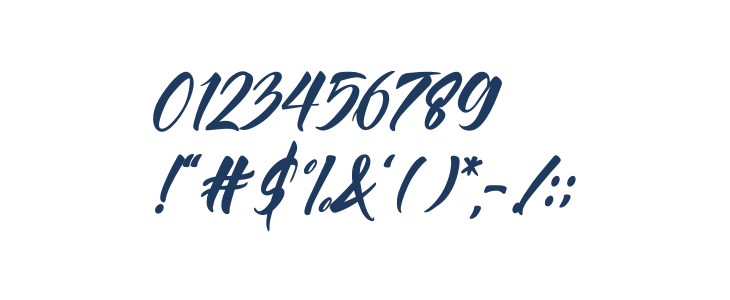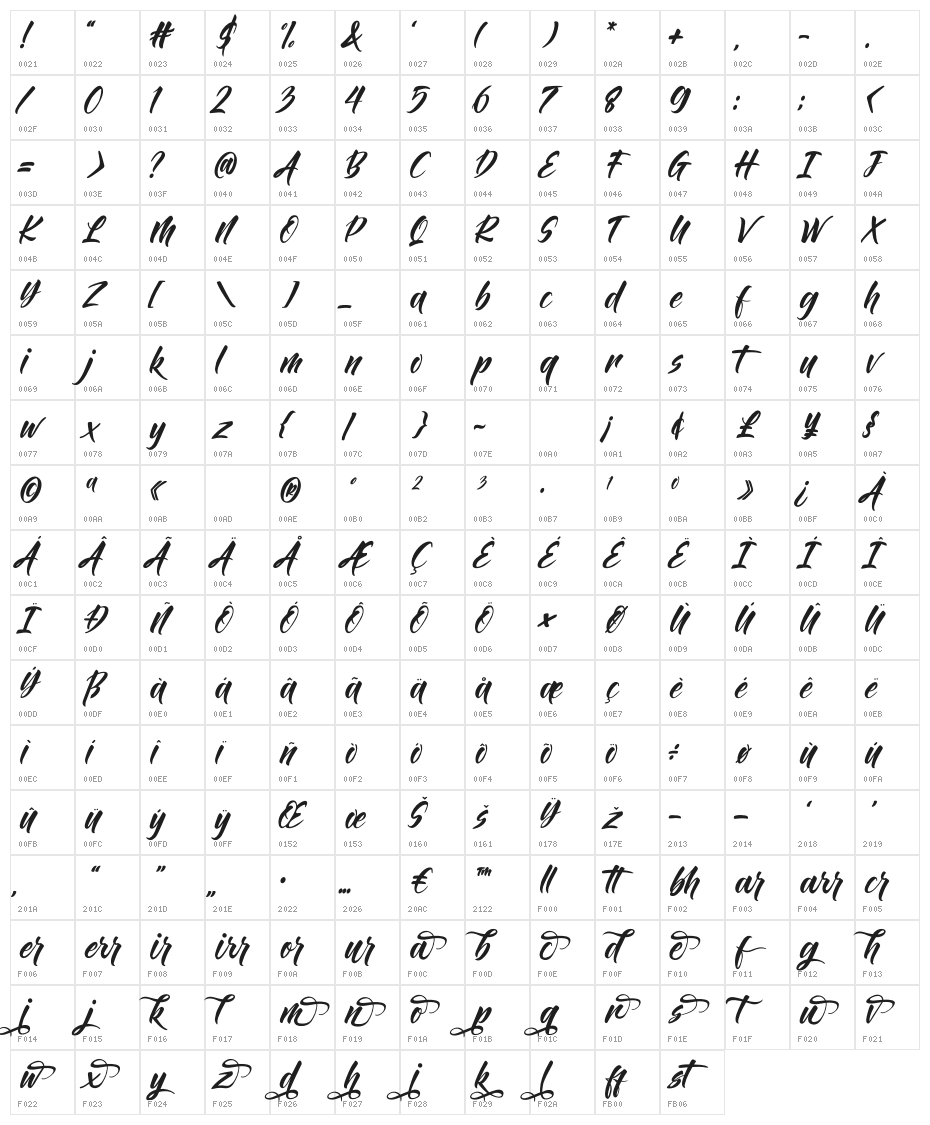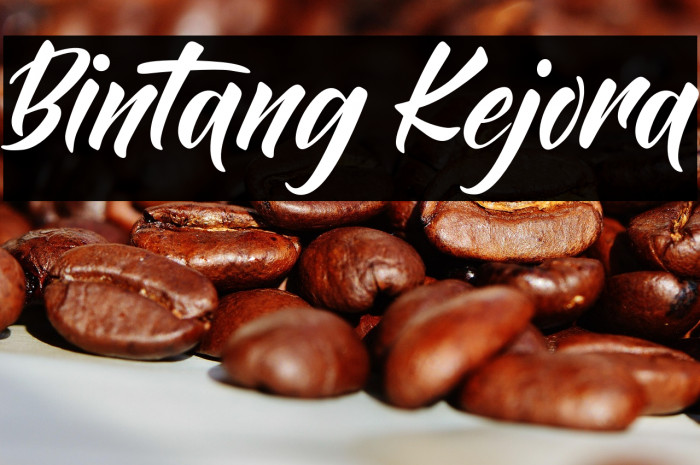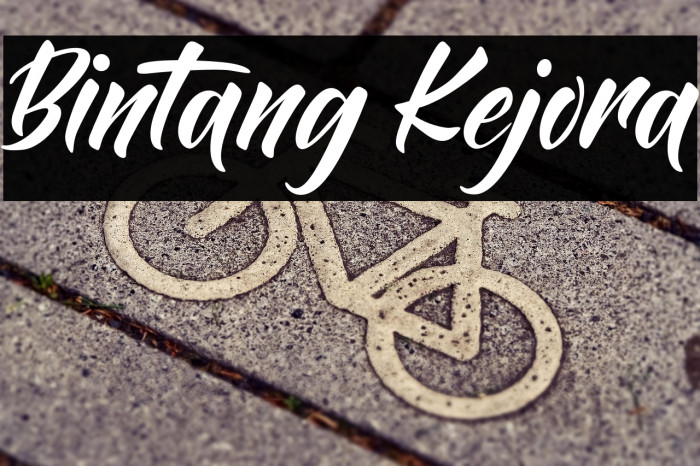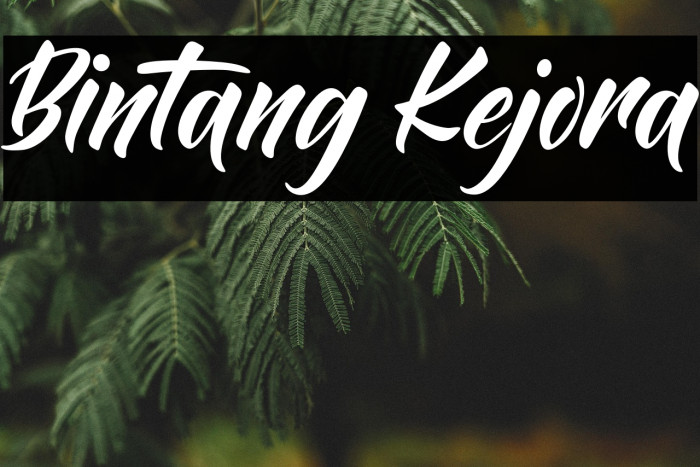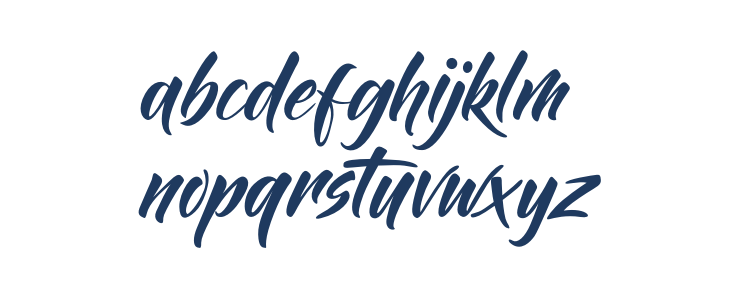
Bintang Kejora Font
Bintang Kejora Description
This font features a dynamic and expressive script style, characterized by its fluid and cursive letterforms. The strokes are bold and sweeping, giving it a sense of movement and energy. Each character is crafted with a distinct flair, showcasing a blend of elegance and modernity. The uppercase letters are particularly striking, with dramatic loops and curves that create a sense of grandeur. The lowercase letters maintain a consistent rhythm, complementing the uppercase with their smooth transitions and rounded edges. The numerals and special characters are equally stylized, ensuring a cohesive look across all text elements. This font is perfect for projects that require a touch of sophistication and personality.